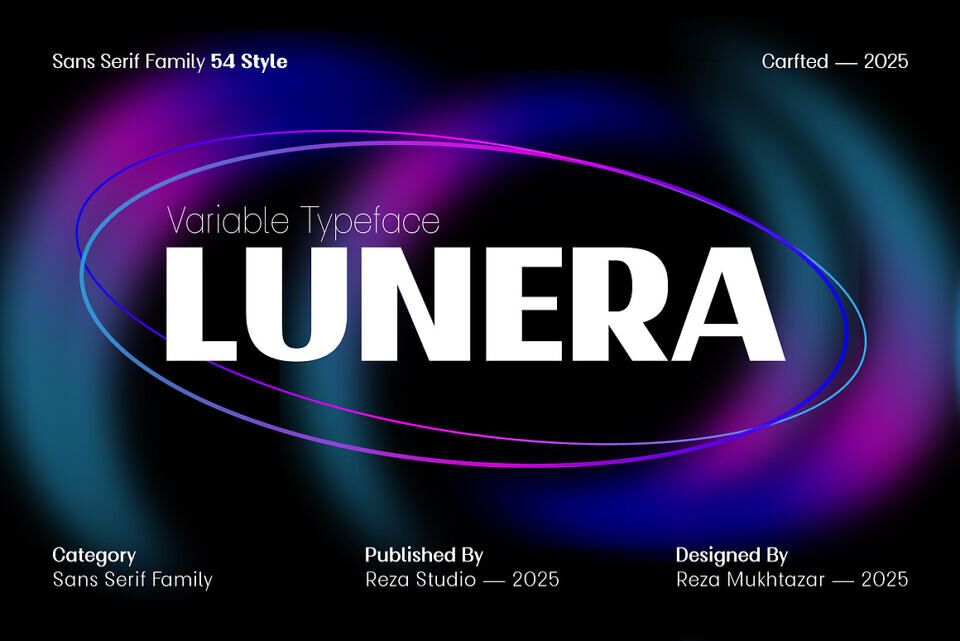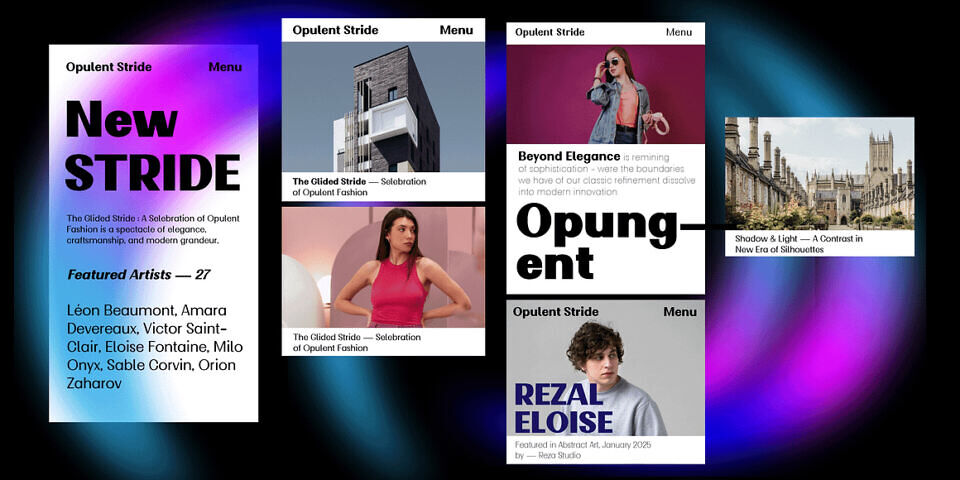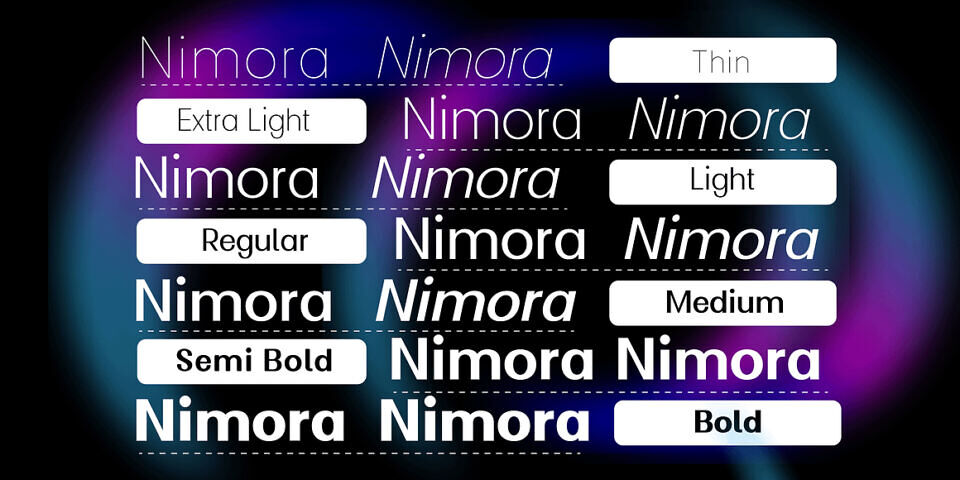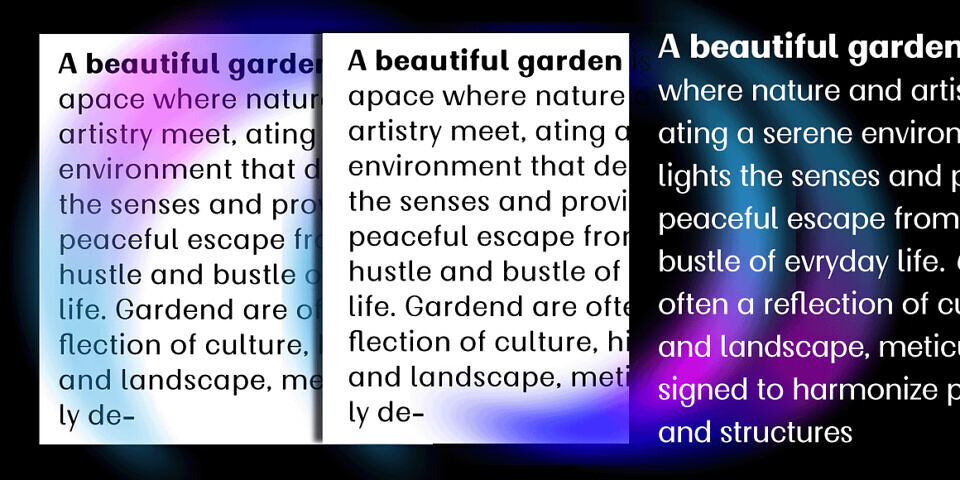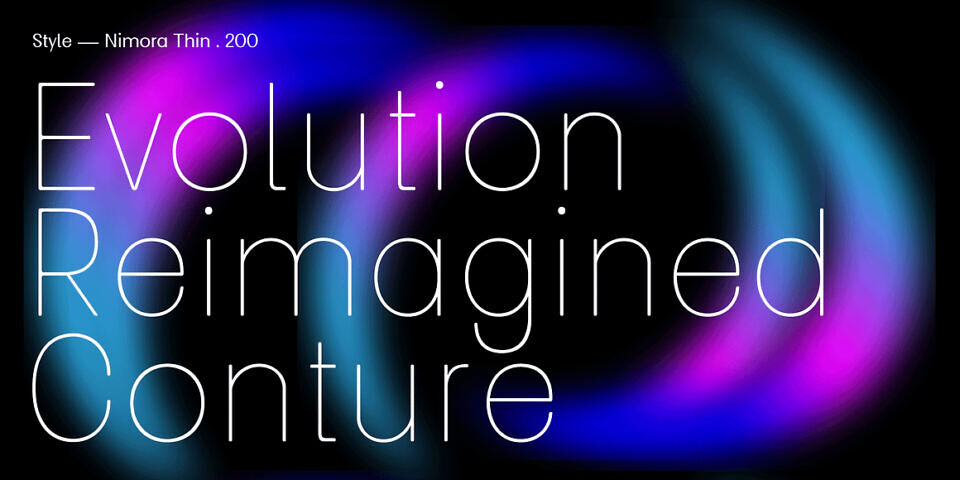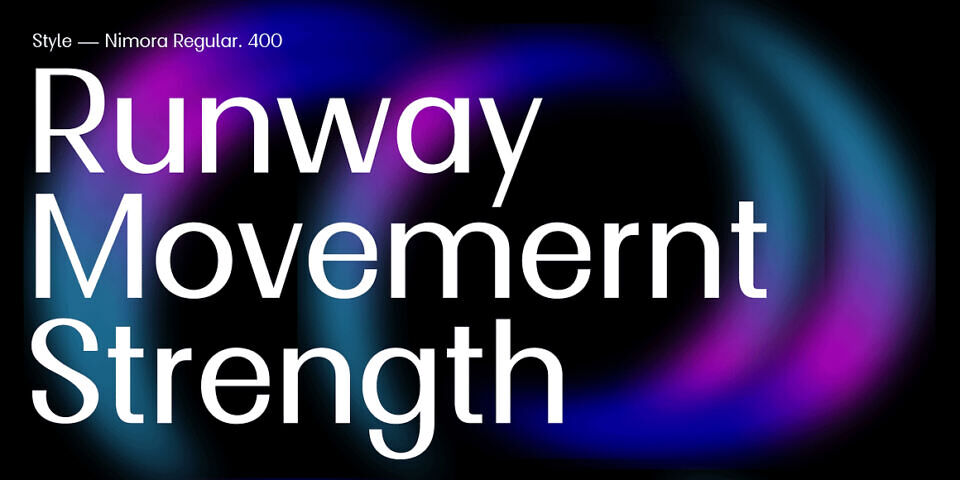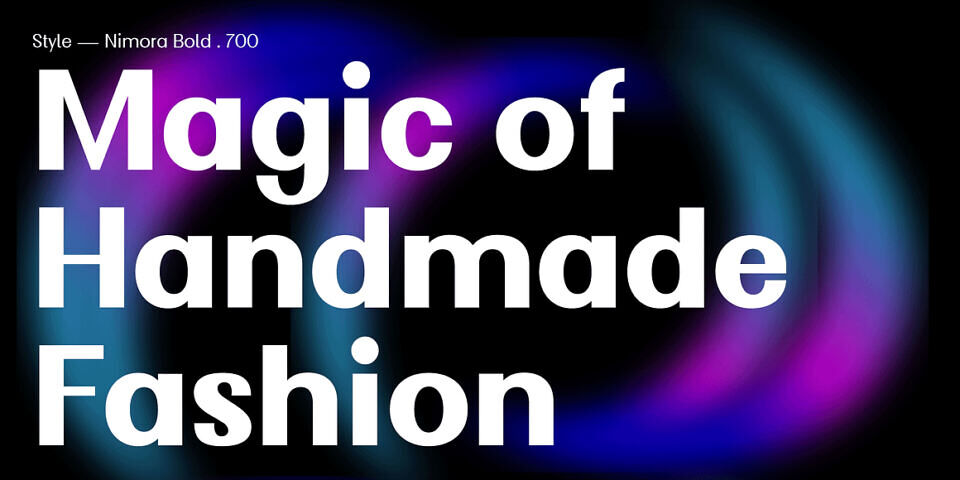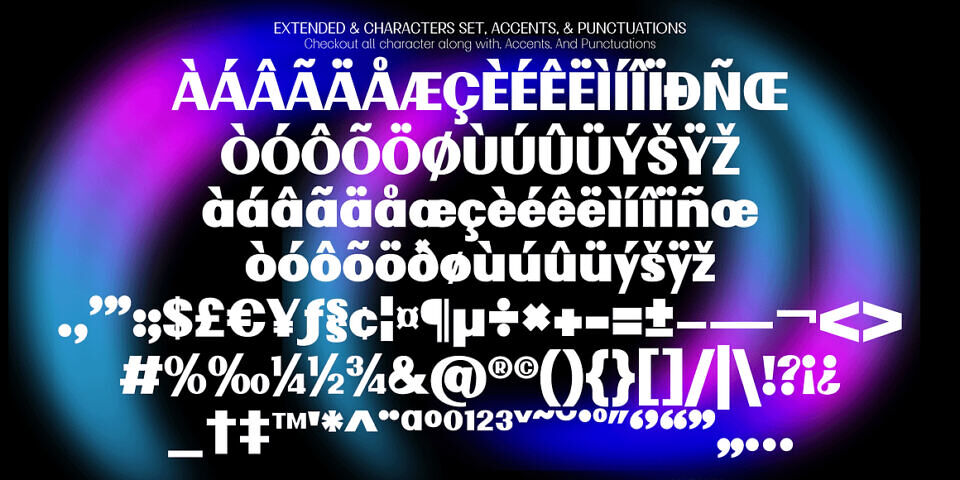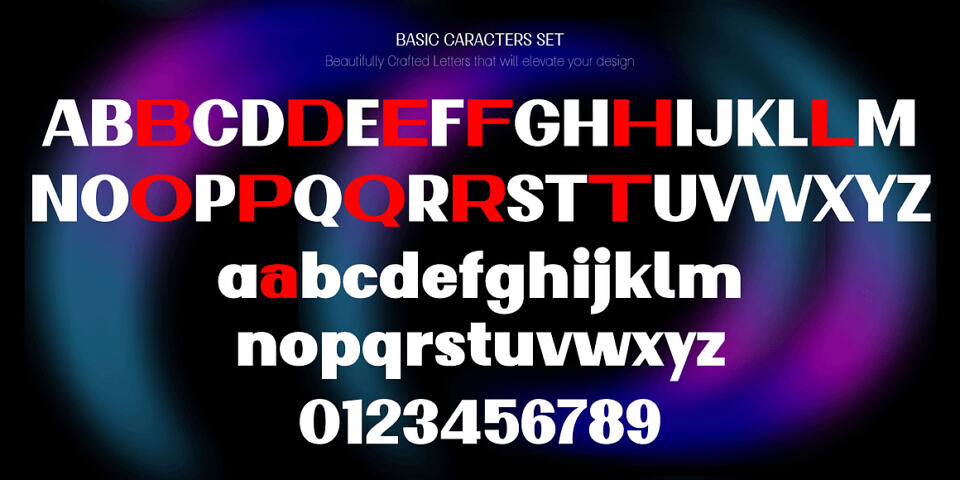
Lunera Font
LUNERA is a clean and contemporary sans serif typeface family designed for flexibility and modern aesthetics. With 54 total styles and full variable font support, LUNERA gives you complete control over weight, width, and expression — making it perfect for branding, editorial design, websites, apps, and more.
Crafted with precision, LUNERA combines geometric structure with smooth curves, resulting in a font that feels both futuristic and highly functional. Whether you need bold headlines or clean body text, LUNERA adapts beautifully to any layout.
Key Features:
• 54 font styles (including uprights and italics)
• Variable font included (weight & width axes)
• Full multilingual support
• Perfect for UI/UX, posters, logos, packaging, and editorial design